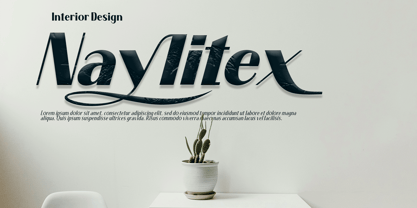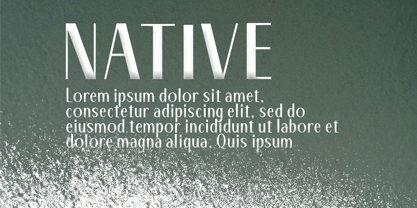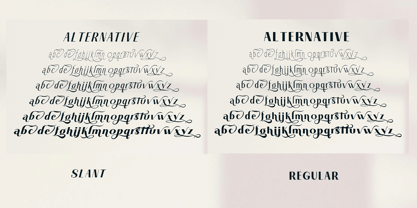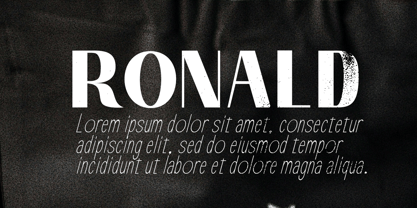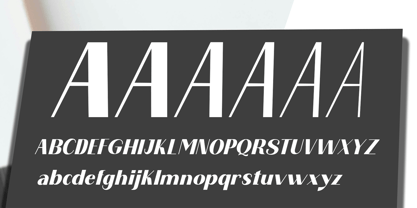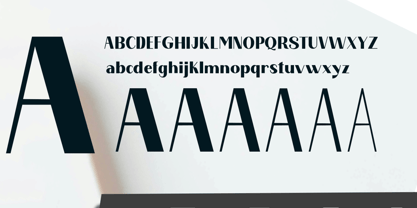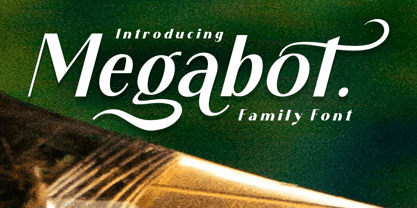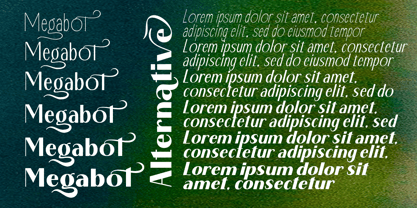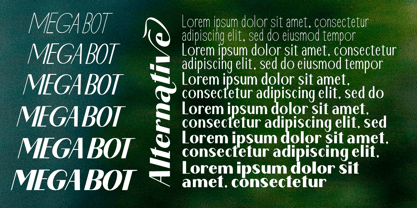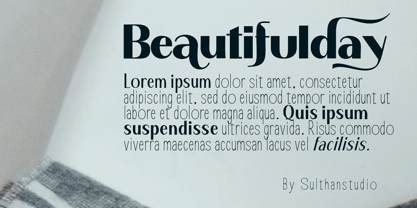
Megabot
The Megabot Font Family was designed by Nasrullah and published by Sulthan Studio. Megabot contains 12 styles and family package options. More about this family
Immerse yourself in the sleek, modern elegance of the Megabot Family sans serif font. This comprehensive typeface suite offers a multitude of variations, featuring a delightful fusion of upright and inclined styles. Sharp yet friendly, Megabot strikes a unique balance between clean lines and dynamic italics, embodying versatility in every character. Perfect for enhancing your graphic design projects with a fresh, contemporary vibe, Megabot Family sans serif font invites you to embrace creative freedom, where typography transcends mere functionality to become an art form. Ideal for branding, web design, and editorial use, this font family is designed to elevate your visual communication.